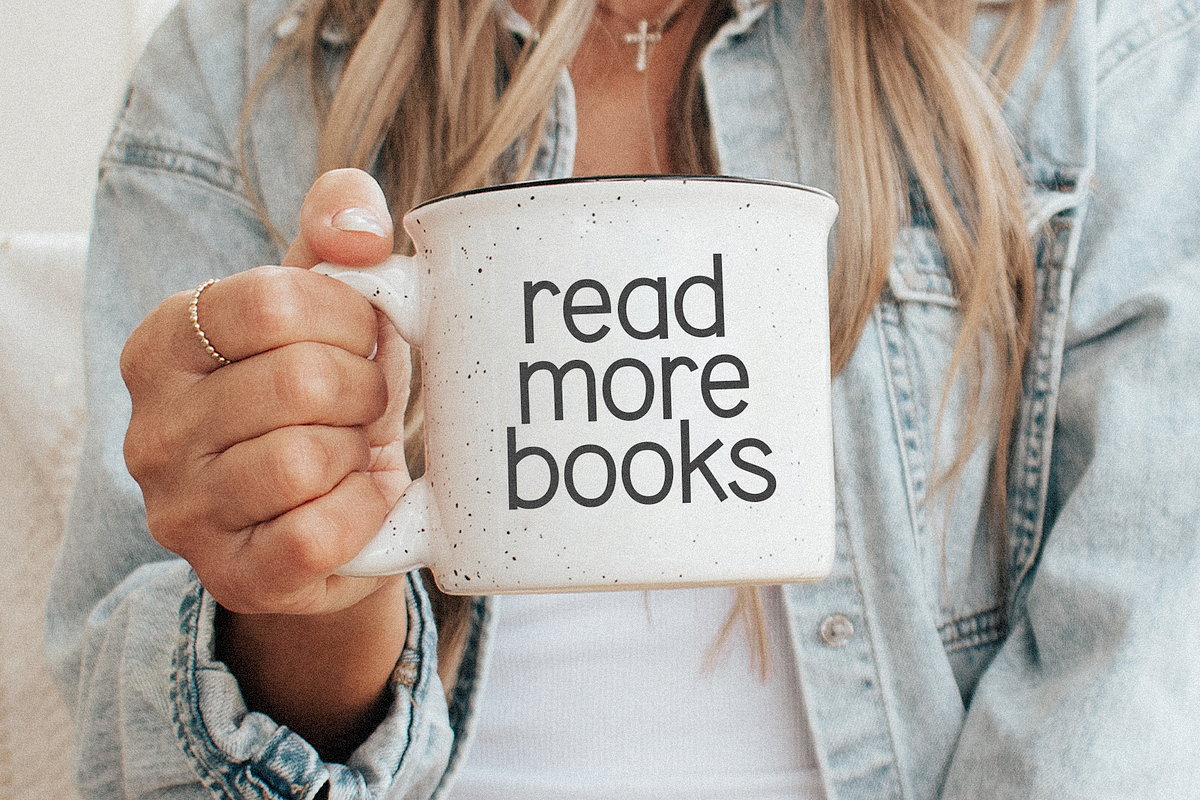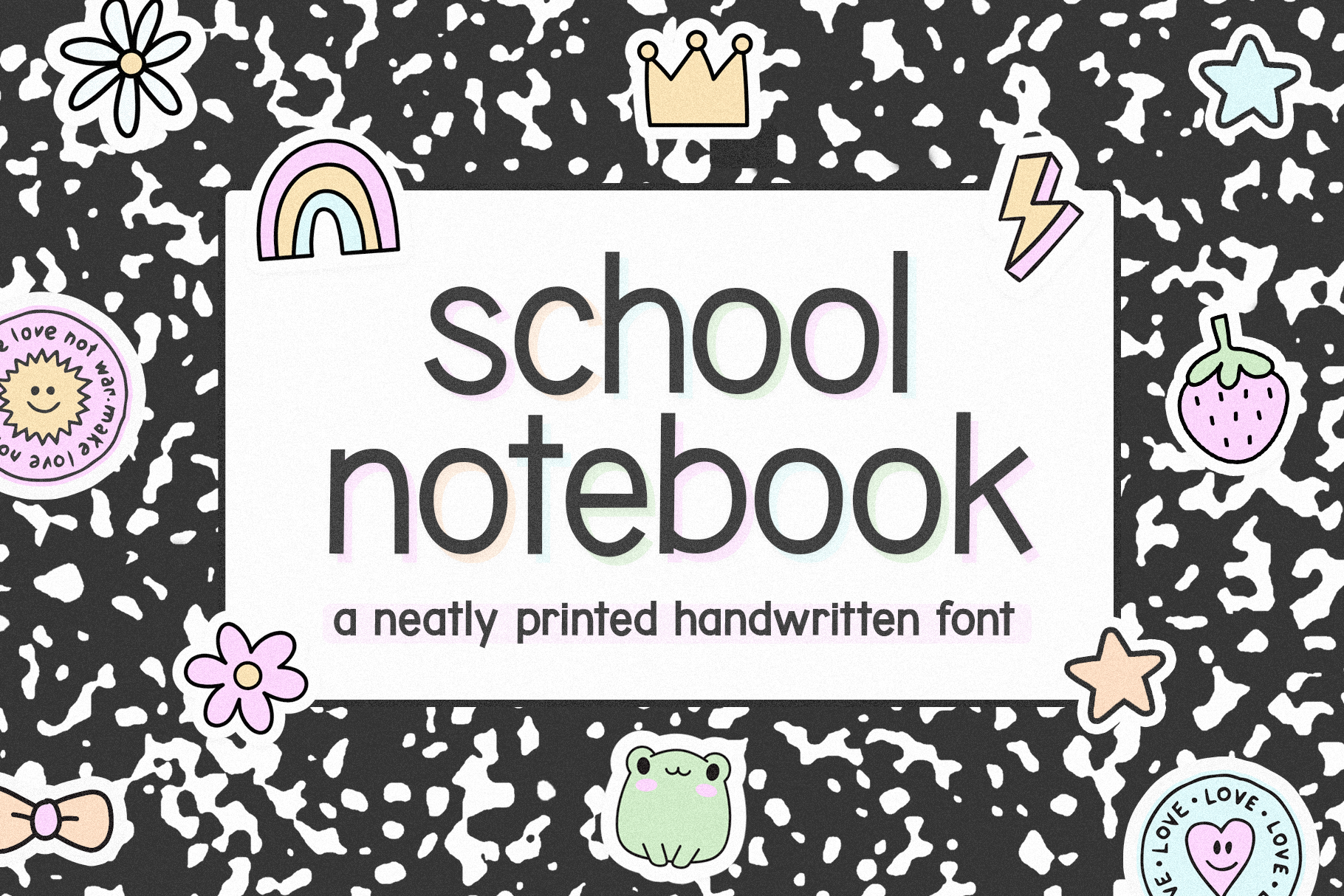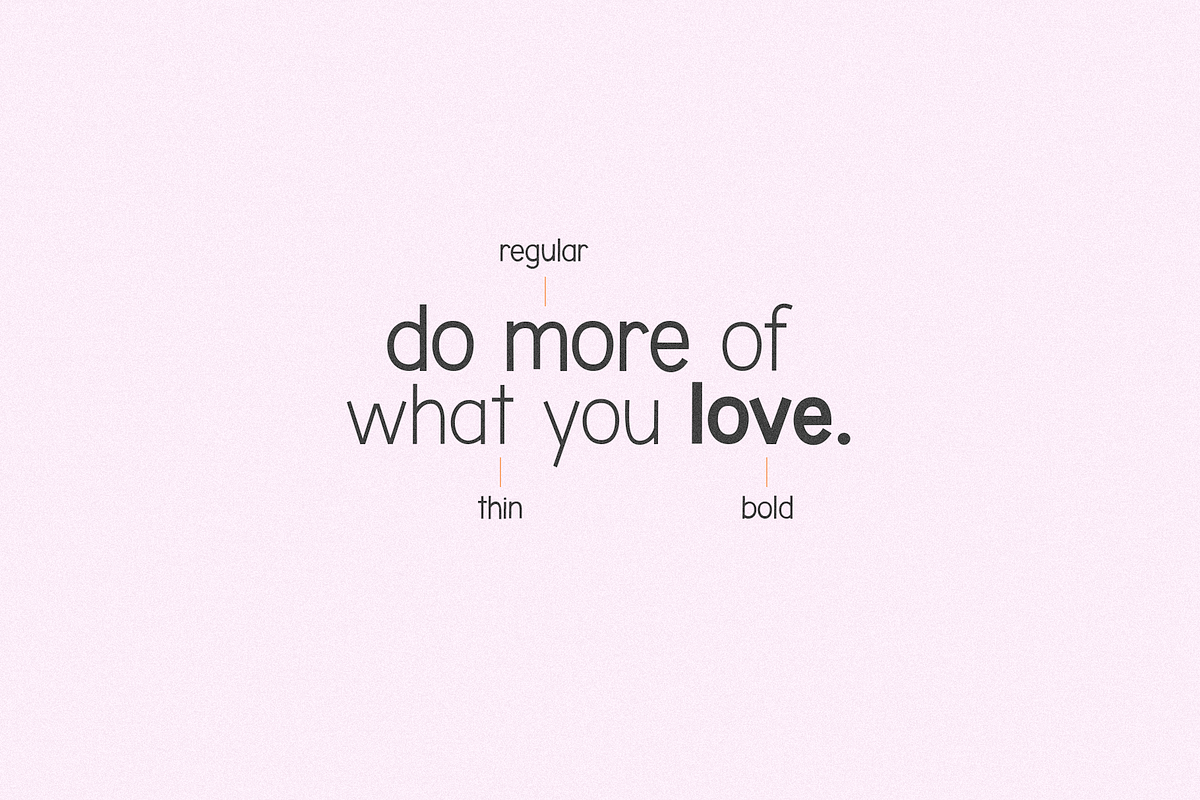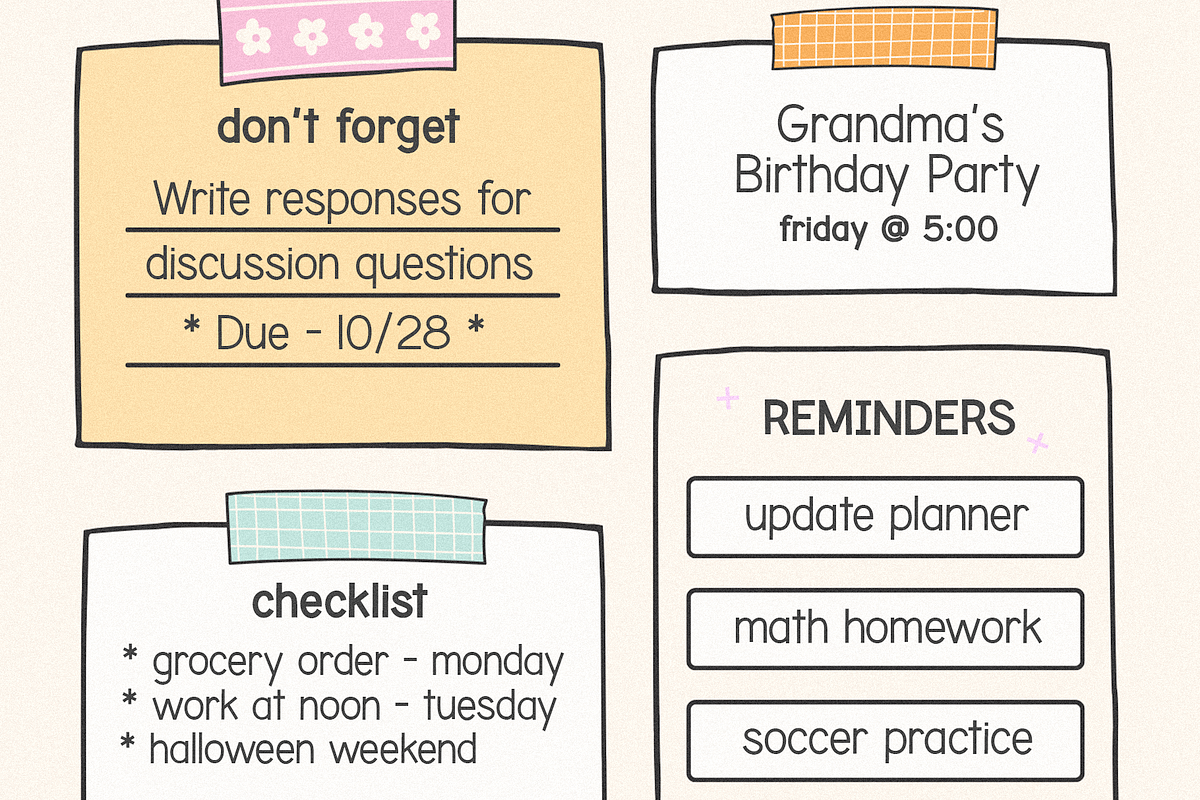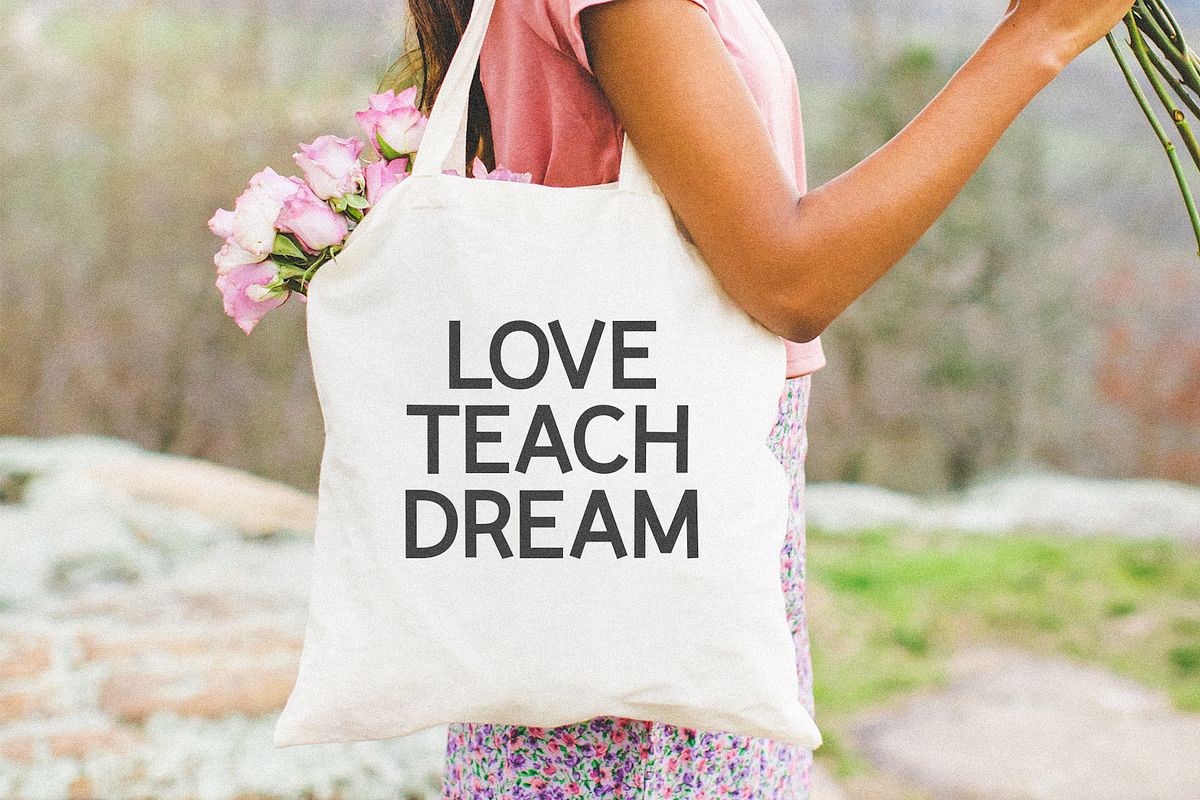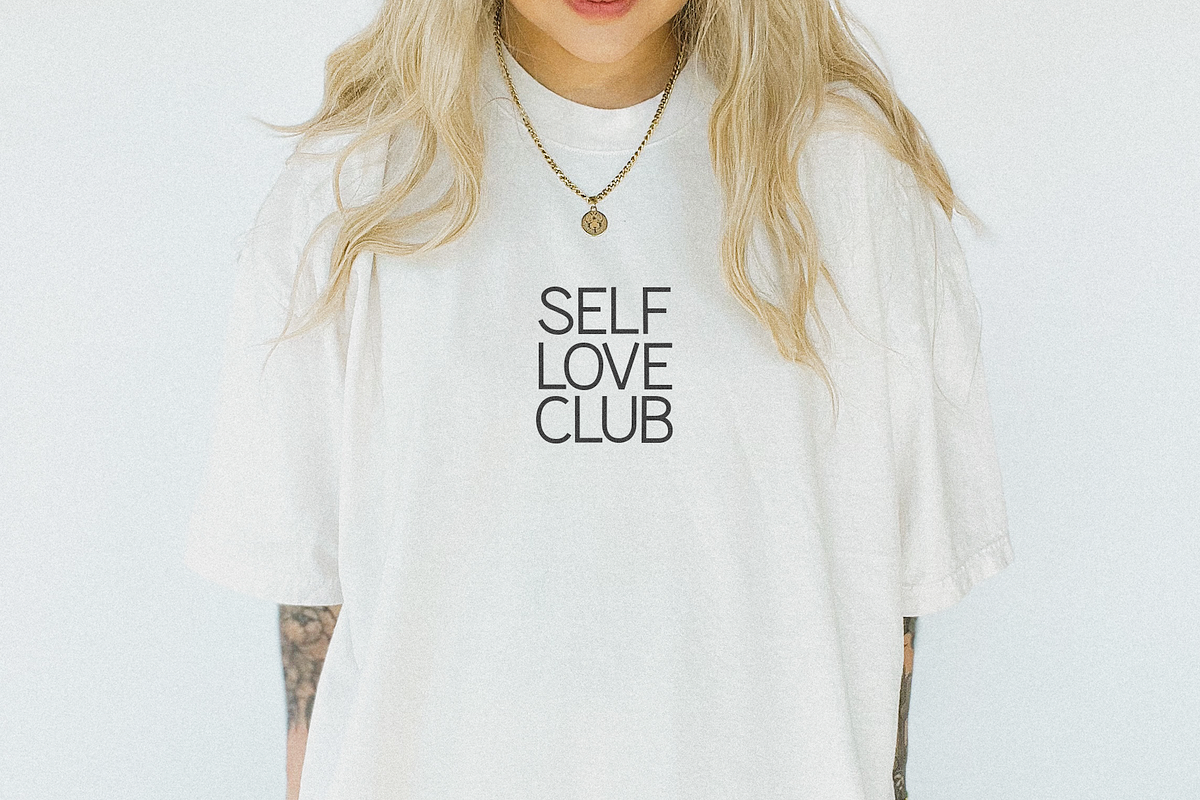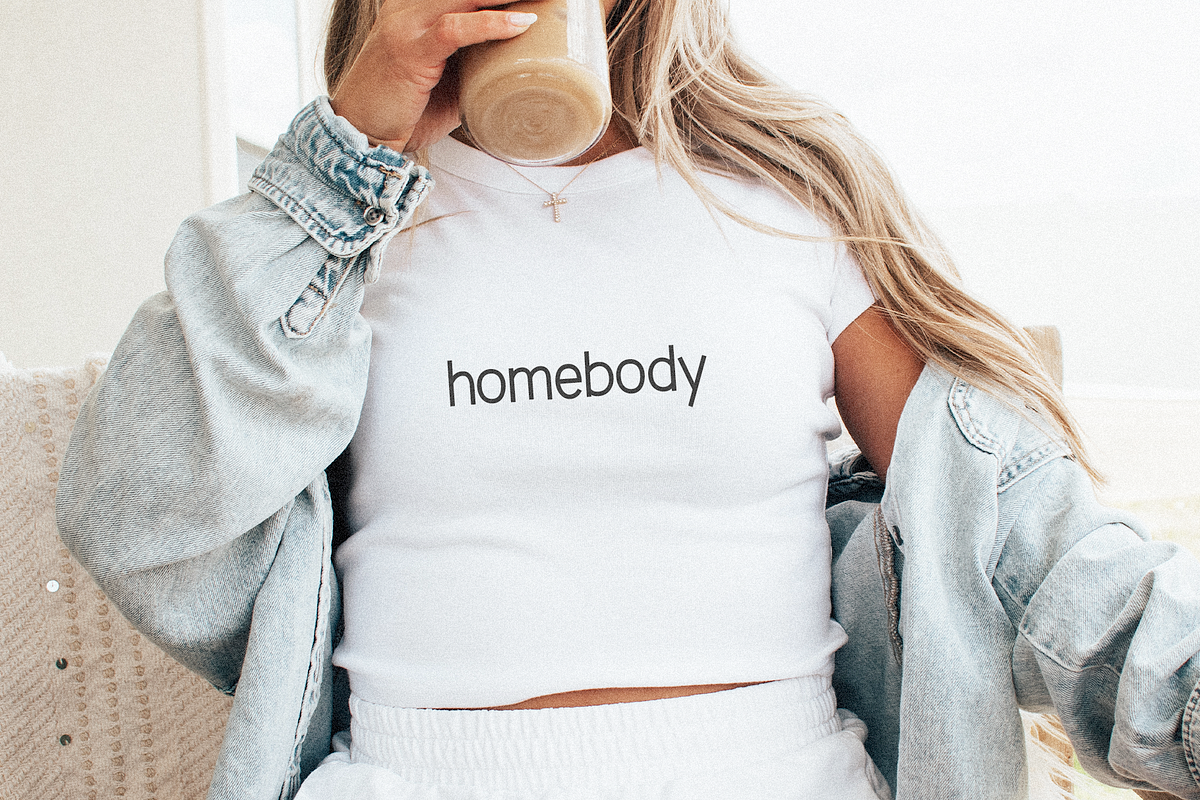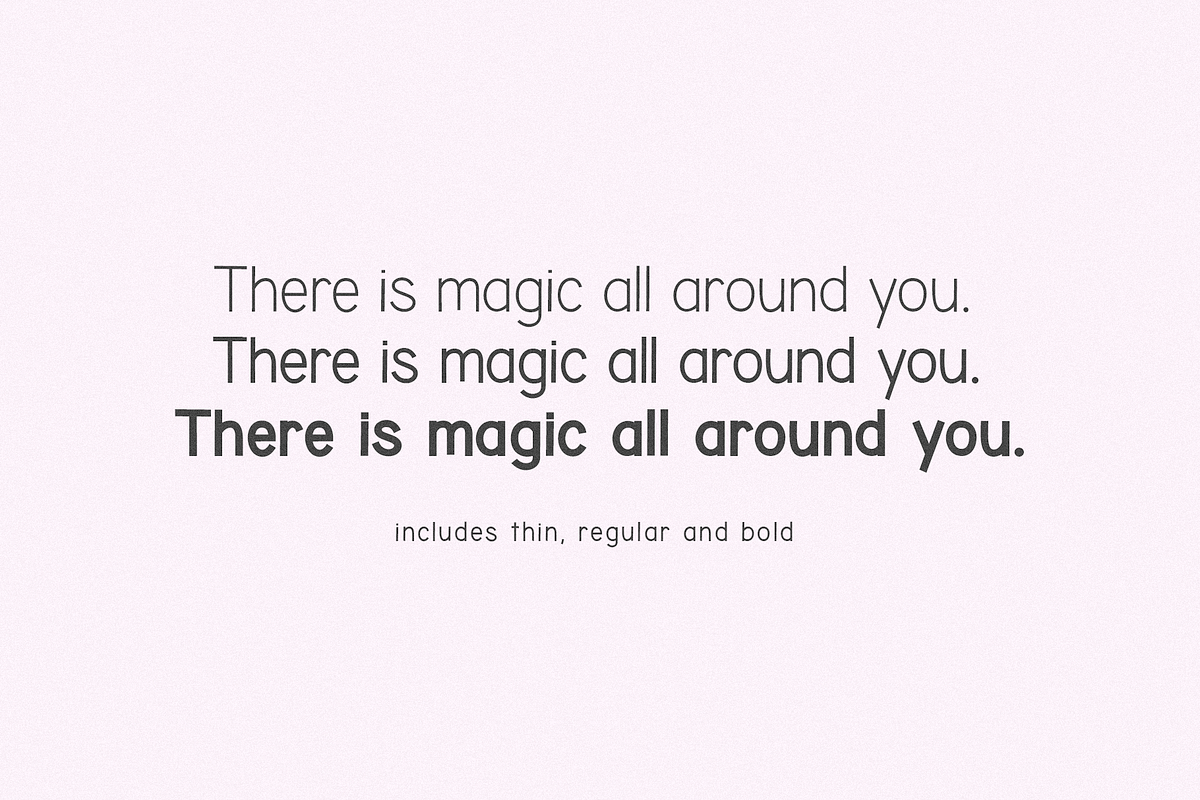
School Notebook | Handwritten Font
School Notebook is a neatly printed handwritten font.
Includes 3 weights - thin, regular and bold
This font is perfect for teachers, goodnotes, planners, svg files, quotes, cricut projects, canva, logos and more!